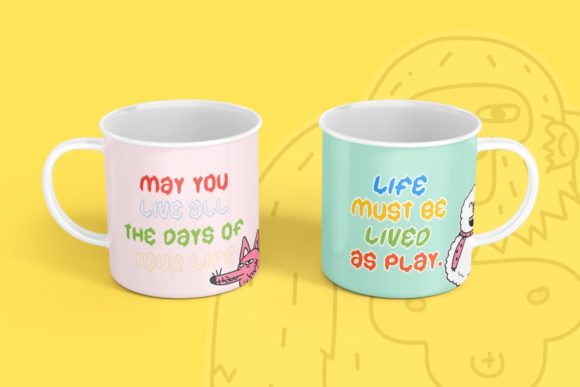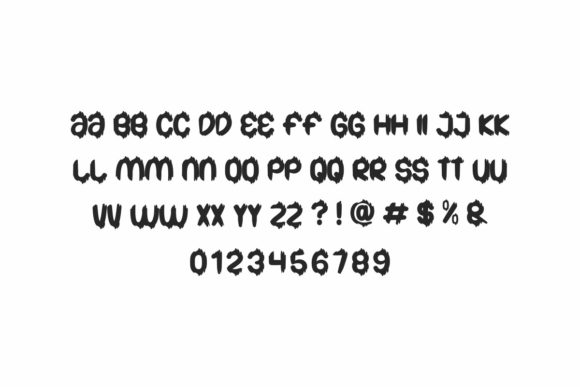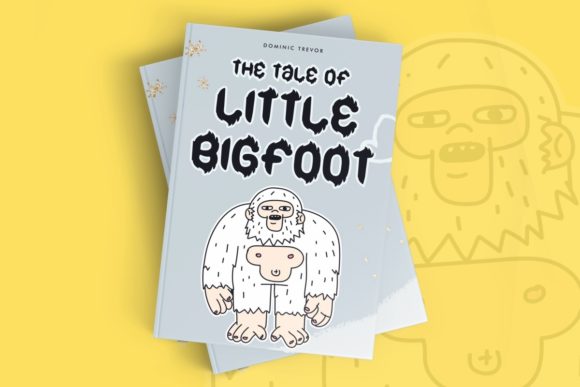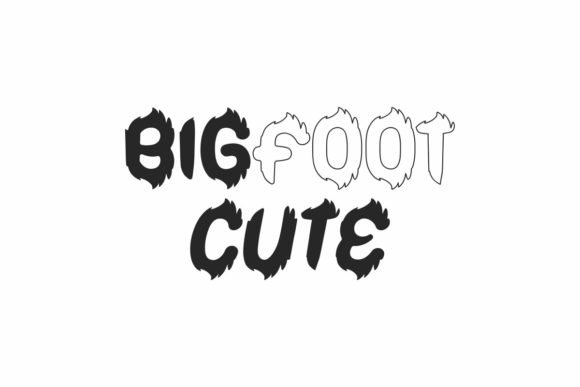
Introduction to Bigfoot Cute Font
Bigfoot Cute Comic Font is a fun display font with hairy letters.
This cute cartoon font will be great for any project, including branding, logo, stationery, business card, signage, flyer, brochure, etc We can already picture this creative font on kids’ t-shirts, mugs, wall art, children’s books, food packaging, and others.